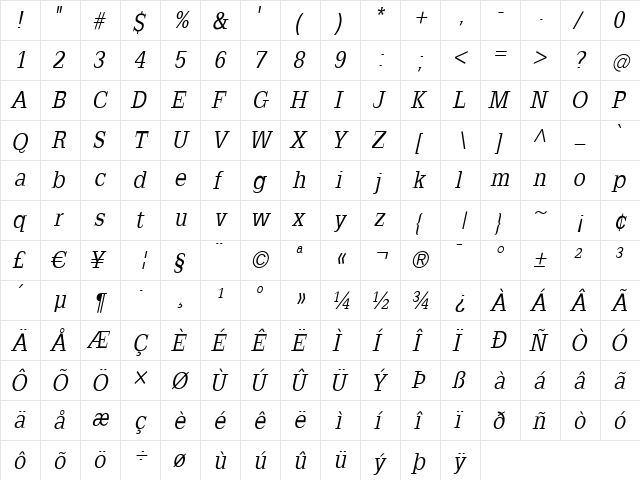
SlabRomana Medium Italic Font Preview
SlabRomana Medium Italic
Design Context for SlabRomana Typeface
SlabRomana features prominent, blocky serifs that give it a confident, grounded presence — equally at home in editorial settings and bold branding work. The slanted form adds forward momentum and visual energy.
Suited to magazines, political campaign materials, bold packaging, and any setting where authority matters.
Pro Tip: Use SlabRomana for headlines and subheadings where its slab serifs can make an impression. It also holds up well in mid-size body copy thanks to its sturdy construction.